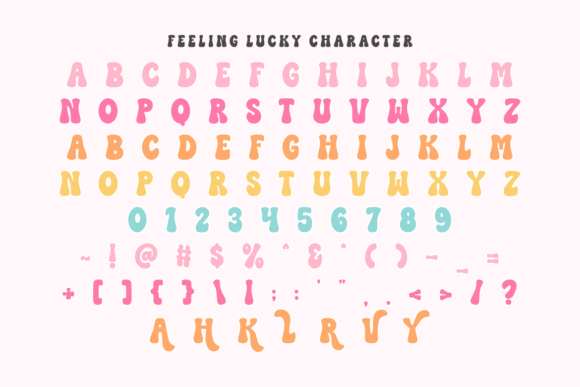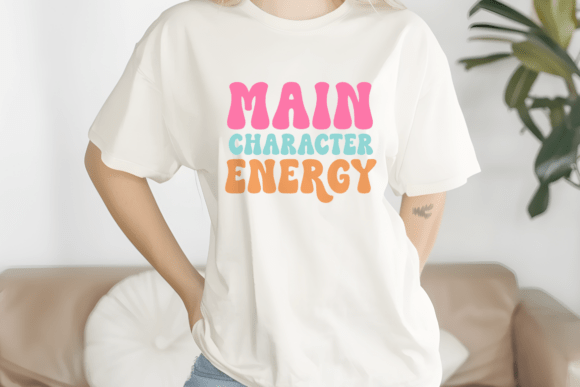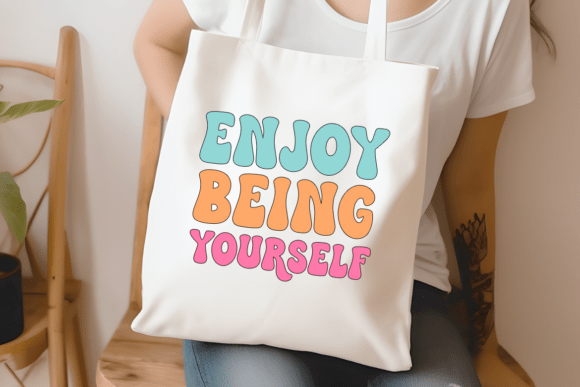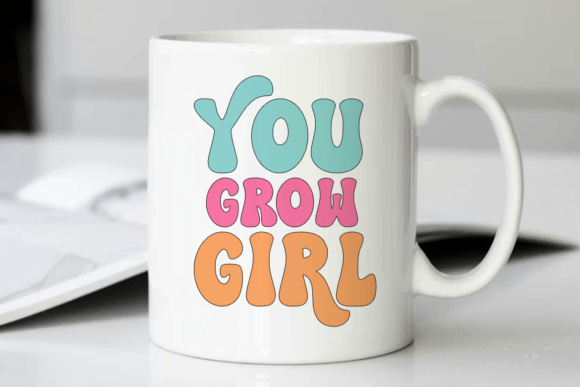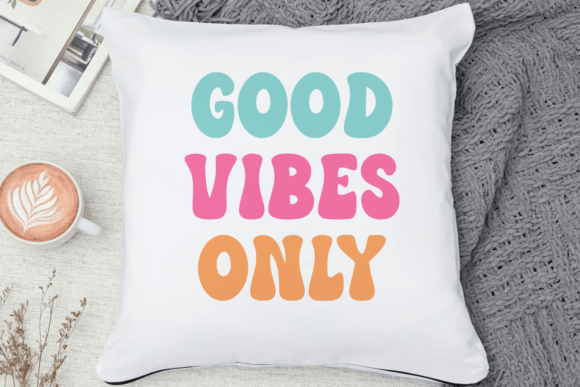
Bring Your Ideas to Life with Feeling Lucky Font: A Charming and Retro Groovy Display Font
Are you tired of using the same old fonts for your designs? Do you want to add a touch of playfulness and whimsy to your creations? Look no further than Feeling Lucky, a charming and retro groovy display font that’s perfect for bringing your ideas to life! With its soft curves and bold appearance, this delightful font is ideal for creating eye-catching headlines, posters, social media graphics, and branding that stands out from the crowd.
The Perfect Blend of Fun and Versatility
Feeling Lucky font is the perfect blend of fun and versatility, making it an excellent choice for designers and crafters who want to add a dreamy touch to their designs. Its unique and quirky style is reminiscent of the 1960s and 1970s, evoking a sense of nostalgia and playfulness that’s hard to resist. Whether you’re creating a logo, a poster, or a social media graphic, Feeling Lucky font is sure to make your design pop!
Key Features of Feeling Lucky Font
So, what makes Feeling Lucky font so special? Here are some of its key features:
- Soft Curves: Feeling Lucky font features soft, rounded curves that give it a friendly and approachable feel.
- Bold Appearance: Despite its soft curves, Feeling Lucky font has a bold appearance that’s perfect for creating eye-catching headlines and titles.
- Retro Groovy Style: Feeling Lucky font has a distinctly retro groovy style that’s reminiscent of the 1960s and 1970s.
- Playful and Whimsical: Feeling Lucky font is the perfect choice for designers who want to add a touch of playfulness and whimsy to their designs.
- Versatile: Feeling Lucky font is versatile and can be used for a wide range of design projects, from logos and posters to social media graphics and branding.
Uses for Feeling Lucky Font
Feeling Lucky font is perfect for a wide range of design projects, including:
- Headlines and Titles: Use Feeling Lucky font to create eye-catching headlines and titles that grab attention.
- Posters and Flyers: Feeling Lucky font is perfect for creating posters and flyers that need to stand out from the crowd.
- Social Media Graphics: Use Feeling Lucky font to create social media graphics that are fun, playful, and engaging.
- Branding: Feeling Lucky font is a great choice for branding projects, such as logos, business cards, and letterheads.
- Digital Crafts: Feeling Lucky font is also perfect for digital crafts, such as digital planners, journals, and printable art.
Tips for Using Feeling Lucky Font
Here are some tips for using Feeling Lucky font:
- Use it as a Display Font: Feeling Lucky font is perfect for use as a display font, where it can be used to create eye-catching headlines and titles.
- Pair it with Other Fonts: Feeling Lucky font can be paired with other fonts to create a unique and interesting contrast.
- Experiment with Colors: Feeling Lucky font looks great in a wide range of colors, so don’t be afraid to experiment and find the perfect color for your design.
- Use it for Emphasis: Feeling Lucky font can be used to add emphasis to certain words or phrases in your design.
In conclusion, Feeling Lucky font is a charming and retro groovy display font that’s perfect for bringing your ideas to life. With its soft curves and bold appearance, this delightful font is ideal for creating eye-catching headlines, posters, social media graphics, and branding that stands out from the crowd. Whether you’re a designer, crafter, or DIY enthusiast, Feeling Lucky font is a great choice for adding a touch of playfulness and whimsy to your designs. So why not give it a try and see the difference it can make?